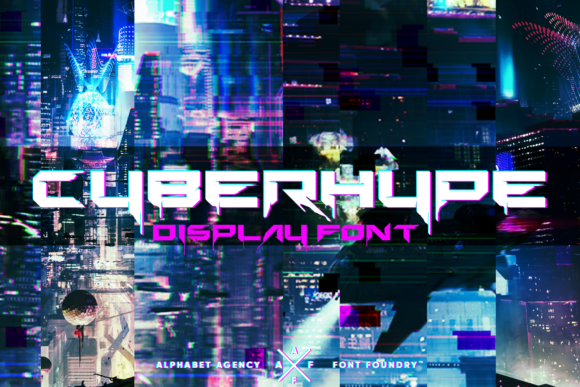
Dive into a world of digital audacity with Cyberhype Font, the ultimate display font that embodies the essence of gaming and futuristic aesthetics. Crafted by the visionary minds at Alphabet Agency, Cyberhype is not just a font; it's a statement, an expression of individuality, and a gateway to a realm where creativity knows no bounds.
Unleash your imagination and let Cyberhype's sharp edges and geometric precision elevate your designs to new heights. Its bold and confident strokes command attention, making it the perfect choice for gaming logos, e-sports branding, tech-inspired projects, and any design that demands a touch of digital flair.
With Cyberhype Font as your weapon of choice, you'll conquer the digital battlefield with designs that are as captivating as they are effective. Its crisp lines and dynamic angles create a sense of movement and energy, propelling your designs forward with a futuristic edge.
But Cyberhype Font isn't just a one-trick pony; its versatility extends far beyond the gaming realm. Its unique and eye-catching design lends itself to a wide range of applications, from movie posters and album covers to cutting-edge web design and social media graphics.
Imagine your designs adorned with Cyberhype Font, radiating with a distinctive and memorable aura. Its carefully crafted characters will leave an indelible mark on your audience, ensuring that your message is not just heard, but felt.
So, if you're ready to embark on a typographic adventure that will redefine your creative horizons, look no further than Cyberhype Font. Its boldness, precision, and versatility make it the perfect companion for any designer seeking to make a lasting impact.
Embrace the digital revolution with Cyberhype Font, where creativity and innovation collide to create designs that are as captivating as they are effective. Your designs will be the talk of the town, leaving your audience in awe of your typographic prowess.
Don't settle for ordinary fonts; choose Cyberhype Font and unleash the true potential of your creativity. The future of design awaits, and Cyberhype Font is your ticket to greatness.